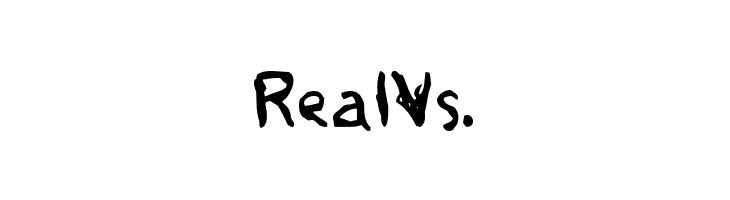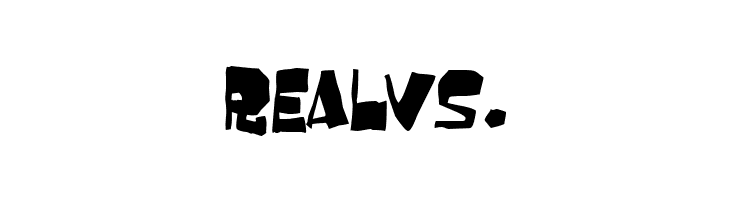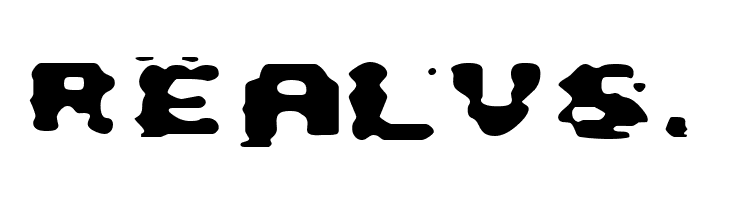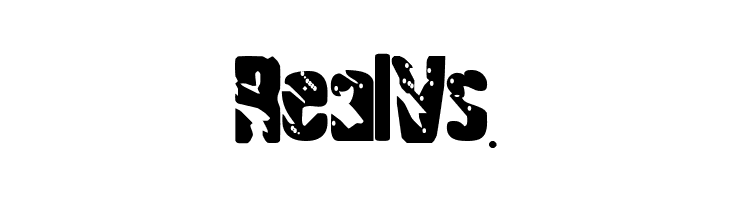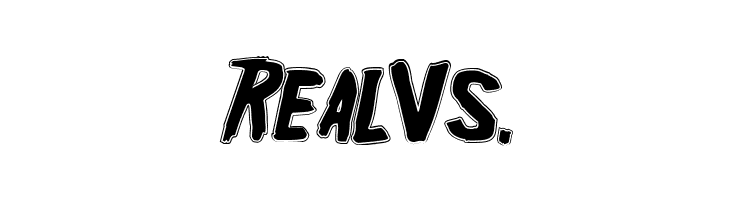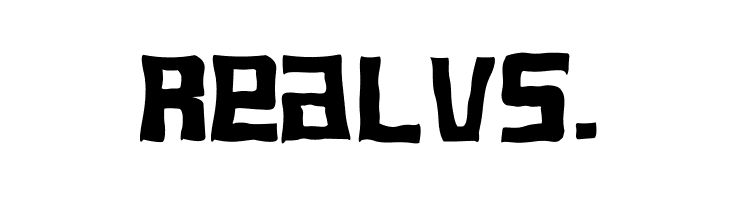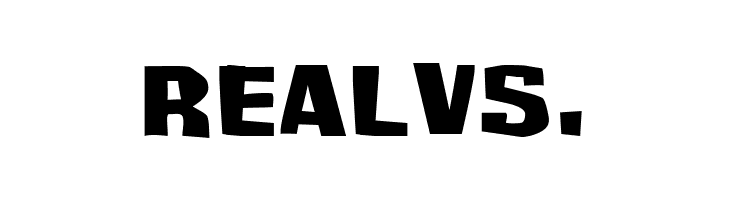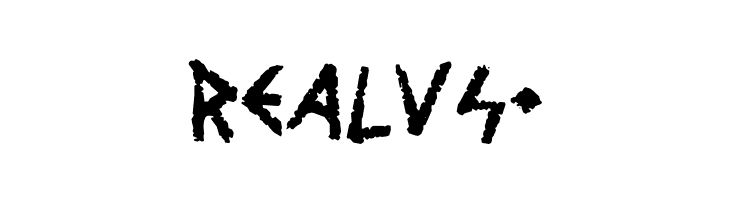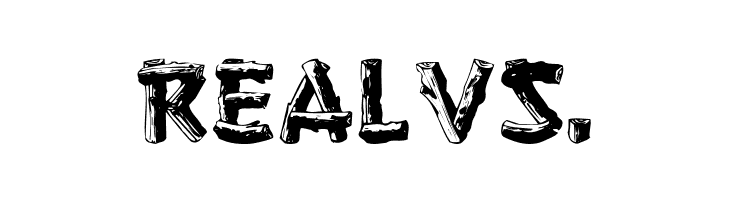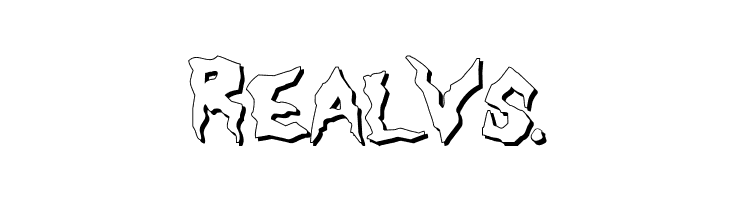
A rugged, hand-drawn font with irregular strokes and a bold, organic feel.
A bold, angular font with a rugged, hand-drawn style.
A bold, distressed stencil-style font with a rugged, industrial look.
A bold, decorative font with a playful, hand-drawn style and rugged outlines.
A rugged, chiseled font with sharp, uneven edges for a bold impact.
A bold, distressed font with a rugged, grunge style.
A distressed, textured font with a rugged, vintage aesthetic.
A bold, stencil-style font with a rugged, industrial design.
A bold, textured font with a gravel-like appearance, ideal for striking visual designs.
A rugged, distressed font with a bold, textured appearance.
A bold, hand-drawn font with a rugged, graffiti-inspired style.
A rugged, textured font with a hand-carved appearance, ideal for bold, artistic designs.
A bold, rugged font with uneven, jagged edges for a distressed look.
A rugged, distressed font with jagged edges and a bold presence.
A bold, distressed font with a vintage, grunge aesthetic.
A bold, jagged font with a rugged, hand-carved appearance.
A bold, outlined font with a rugged, hand-drawn appearance.
A playful, rugged font with a hand-carved, stone-like appearance.